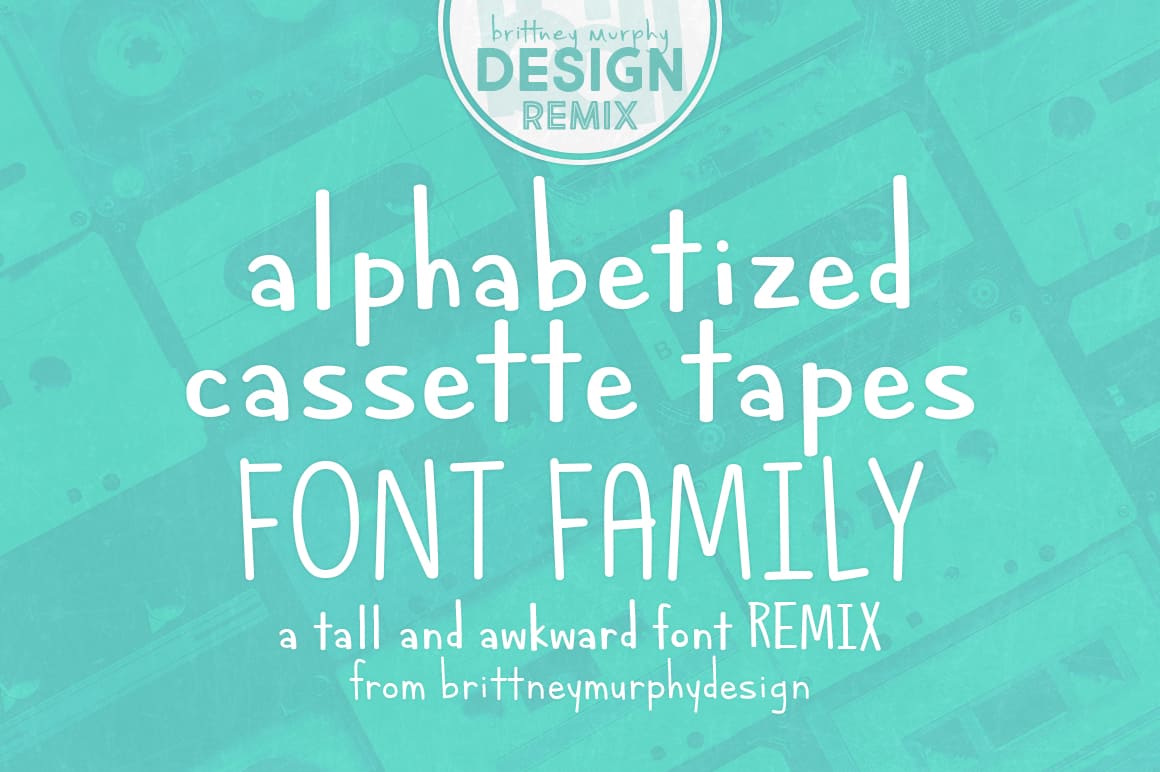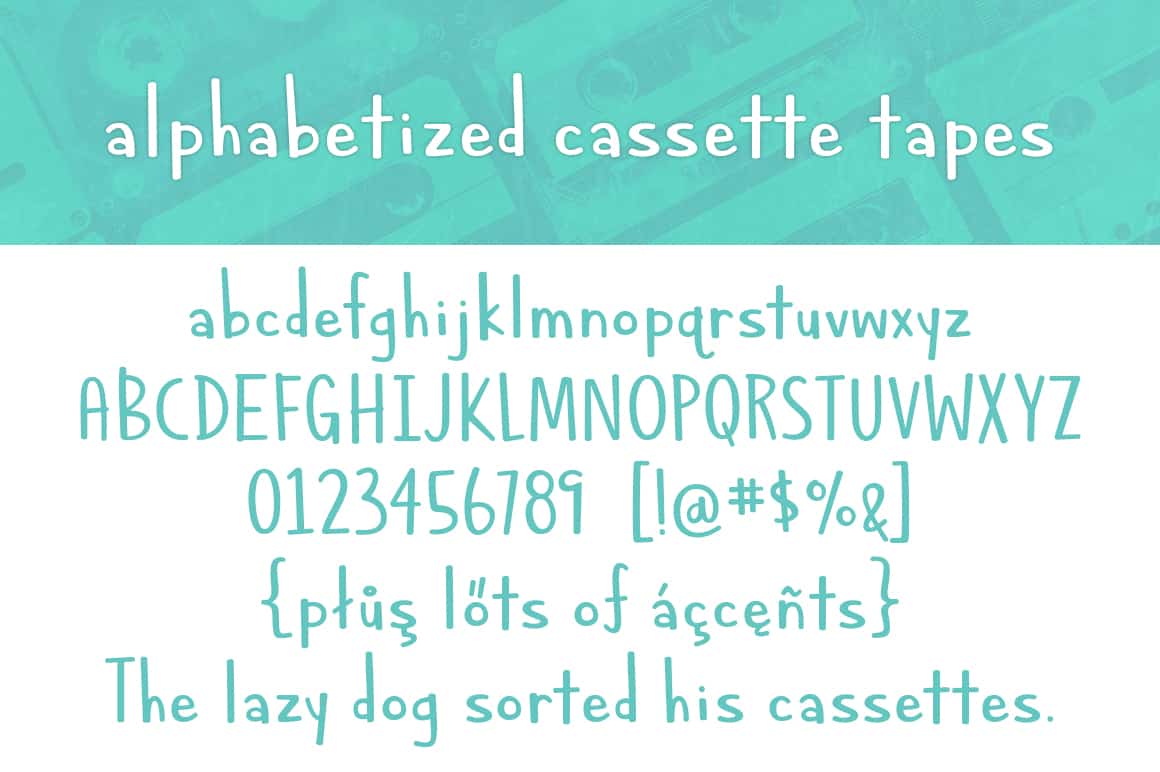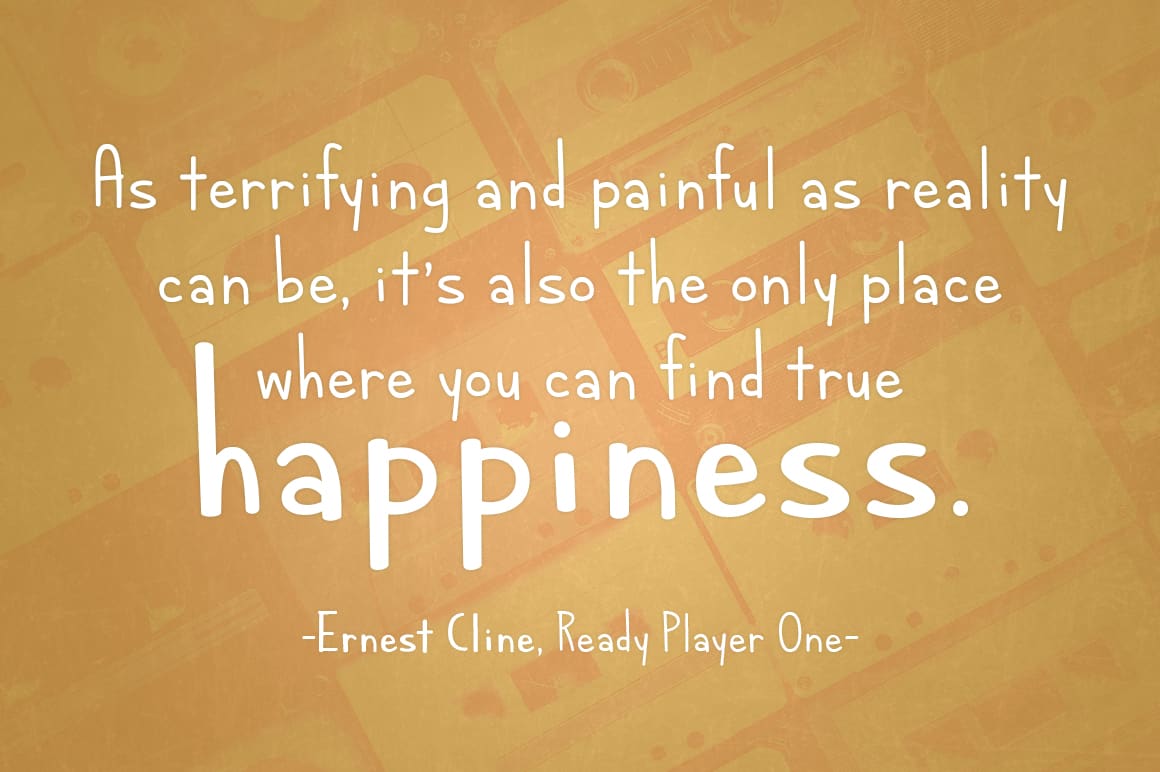
Alphabetized Cassette Tapes
The Alphabetized Cassette Tapes font family is a handwritten sans serif created in 2011 by Brittney Murphy Design. Alphabetized Cassette Tapes comes in 3 styles, the classic or original version, the 2017 update version, and a thin version of the 2017 version. Alphabetized Cassette Tapes contains over 350 characters and supports most latin based languages. Licensing for the family comes at a reduced rate.